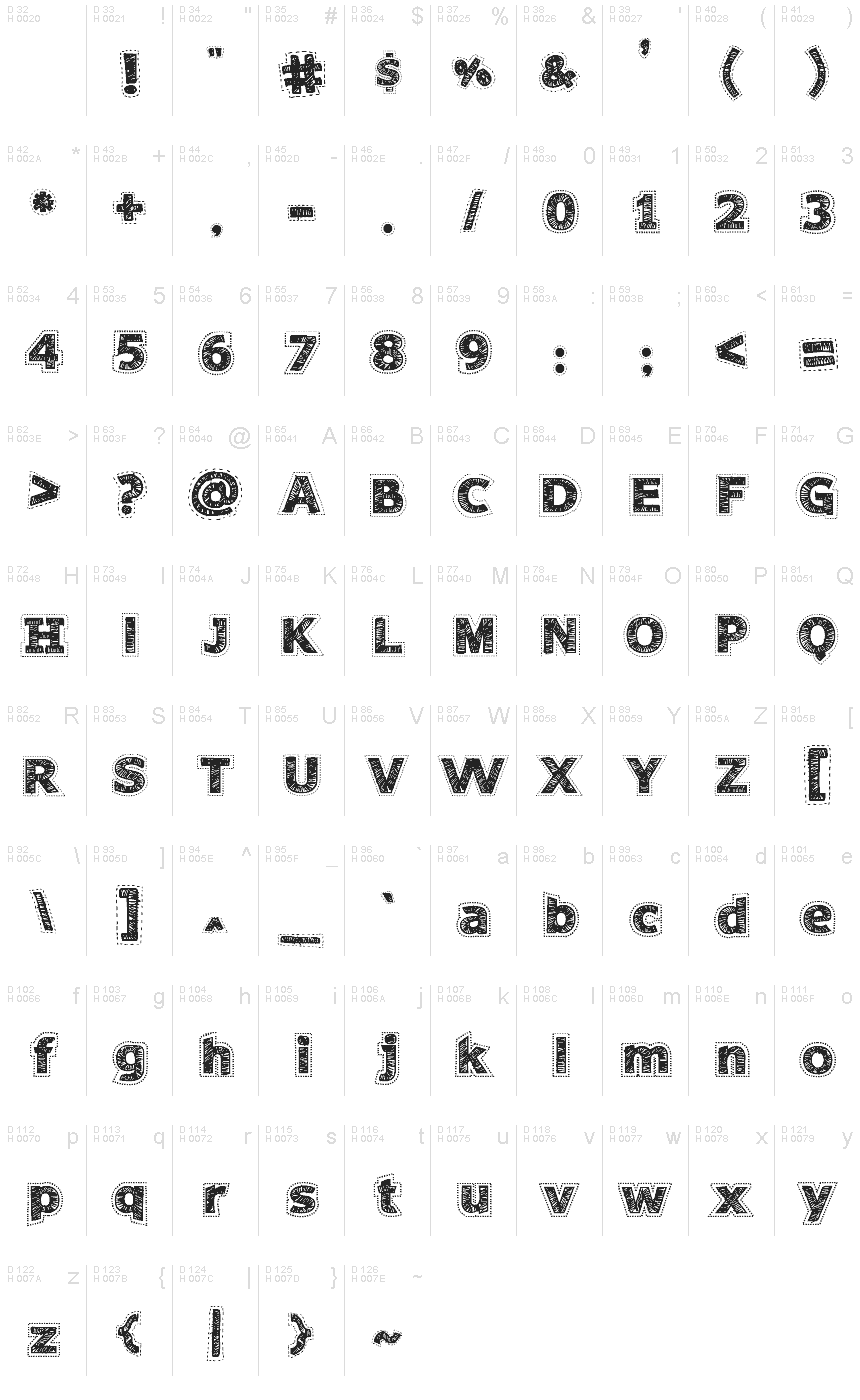
Needlework Perfect
Needlework Perfect font by Galdino Otten Fonts is a free decorative display font with vintage and nostalgic influences. Its letters are bold, textured, and eye-catching which gives the font a unique character. Like needlework itself, this font gives away a fascinating handcrafted effect that showcases elegance on the surface. It also presents subtle patterns, lines, and special shapes which enhance its overall beauty.
This old-school font is suitable for use in headlines, titles or branding designs such as logo designs and label packaging/artworks. However, it’s also suitable for posters design (movie/films), cover of books/magazines development as well as advertising campaigns both online or in traditional media for business marketing or artist endeavors. Use it to develop titles of newsletters or project presentations at school/work too!